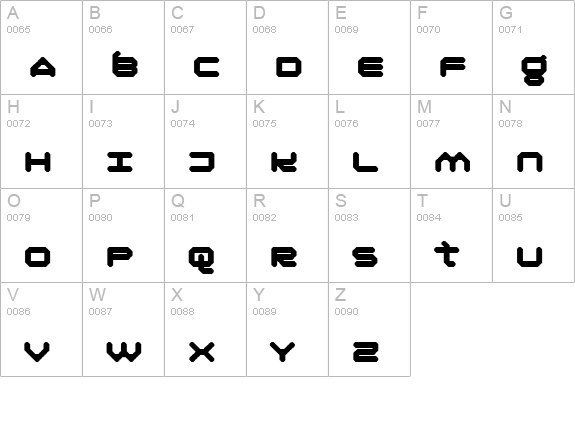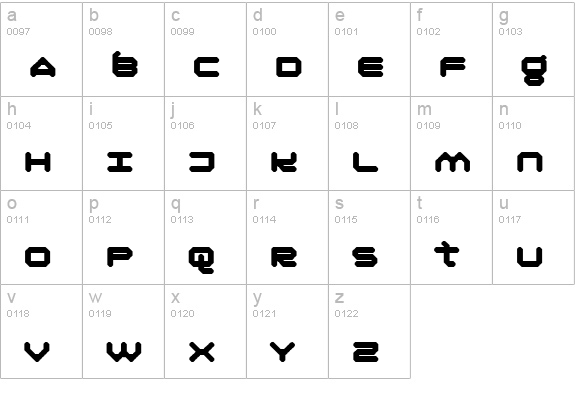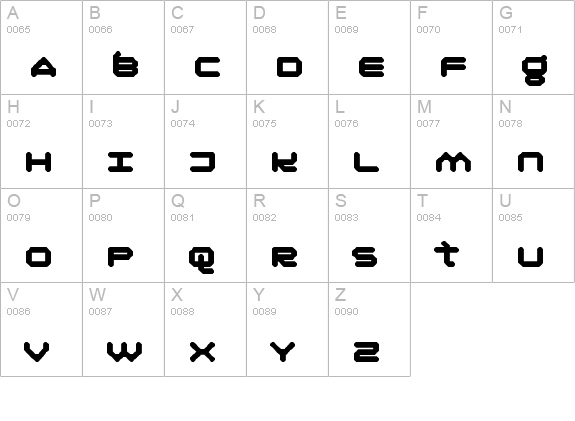
Oliray41 Normal is the standard, neutral variant in the Oliray41 typeface family \xE2\x80\x94 well suited to general body text, paragraphs, and standard typographic work.
Oliray41 Normal font is a beautifully crafted typeface with a touch of elegance and sophistication. Its clean lines and balanced proportions make it a versatile choice for a wide range of design projects. The classic yet modern design of Oliray41 Normal font exudes a timeless charm that is sure to enhance any text it is applied to. This font is available for free download at FontsMarket.com, making it easily accessible for designers, students, and anyone looking to add a touch of style to their projects. Whether you're working on a logo, poster, website, or any other creative endeavor, Oliray41 Normal font is a fantastic choice that will elevate your design to the next level. With its legible letterforms and subtle details, Oliray41 Normal font is perfect for both display and text use. Its versatility and understated elegance make it a must-have in any designer's toolkit. Download Oliray41 Normal font for free today and discover the endless possibilities it offers for your creative projects.